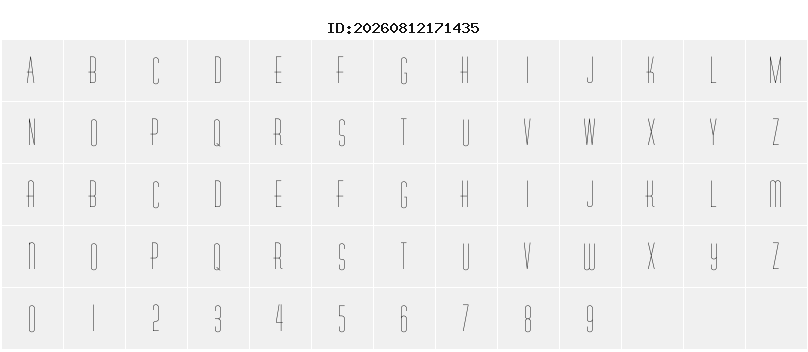
Rhyol Preview
About Rhyol.ttf
Rhyol.ttf is a modern, elegant sans-serif font designed for ultimate readability and visual harmony. Perfect for branding, headlines, web design, and print materials.